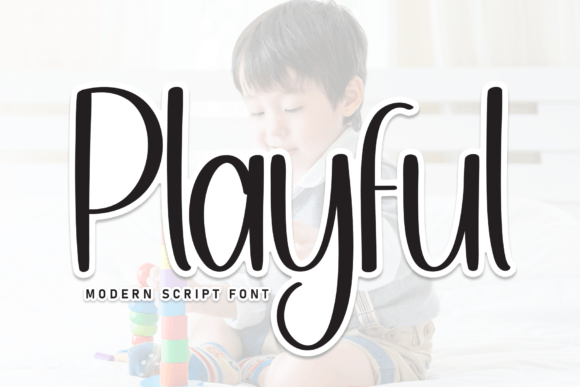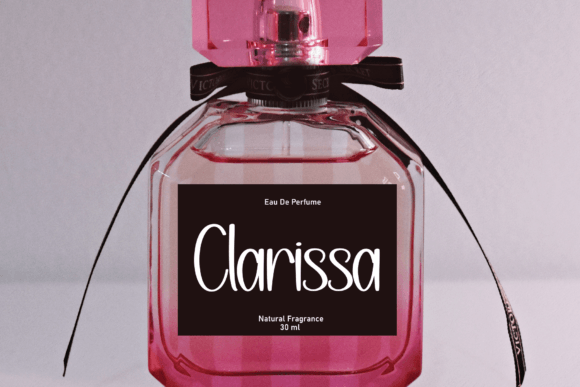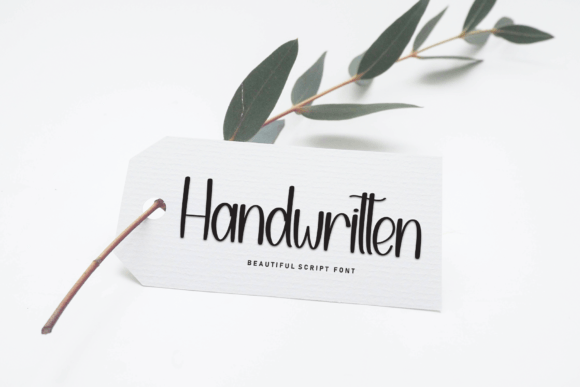
Playful Font
About the Playful Font
Step up your design game with Playful Font, a font that exudes confidence and style. Playful is a sweet and friendly handwritten display font. Cute and fun, this font is ideal for writing wedding invitations, cards, or any other design that might need a fun touch!
Its friendly, informal style makes it perfect for branding projects targeting a young, playful audience, particularly in areas like children’s products, social media graphics, or event invitations. It excels in headlines, short phrases, and logos, adding a touch of whimsy. Avoid using Playful for body text or lengthy paragraphs; its handwritten nature compromises readability at smaller sizes.
For optimal visual harmony, pair Playful with a clean sans-serif like Open Sans for body copy, providing a strong contrast in style while maintaining a friendly feel. Alternatively, a classic serif like Garamond could add a touch of sophistication to balance the font’s informality, ideal for projects needing both playfulness and a sense of tradition.
Playful’s overall personality is undeniably cheerful and approachable, conveying warmth and approachability. Its limited character set and casual style makes it less suitable for formal applications or corporate branding needing a more polished and serious presentation.
Playful Font Usage Examples
Playful Font Example